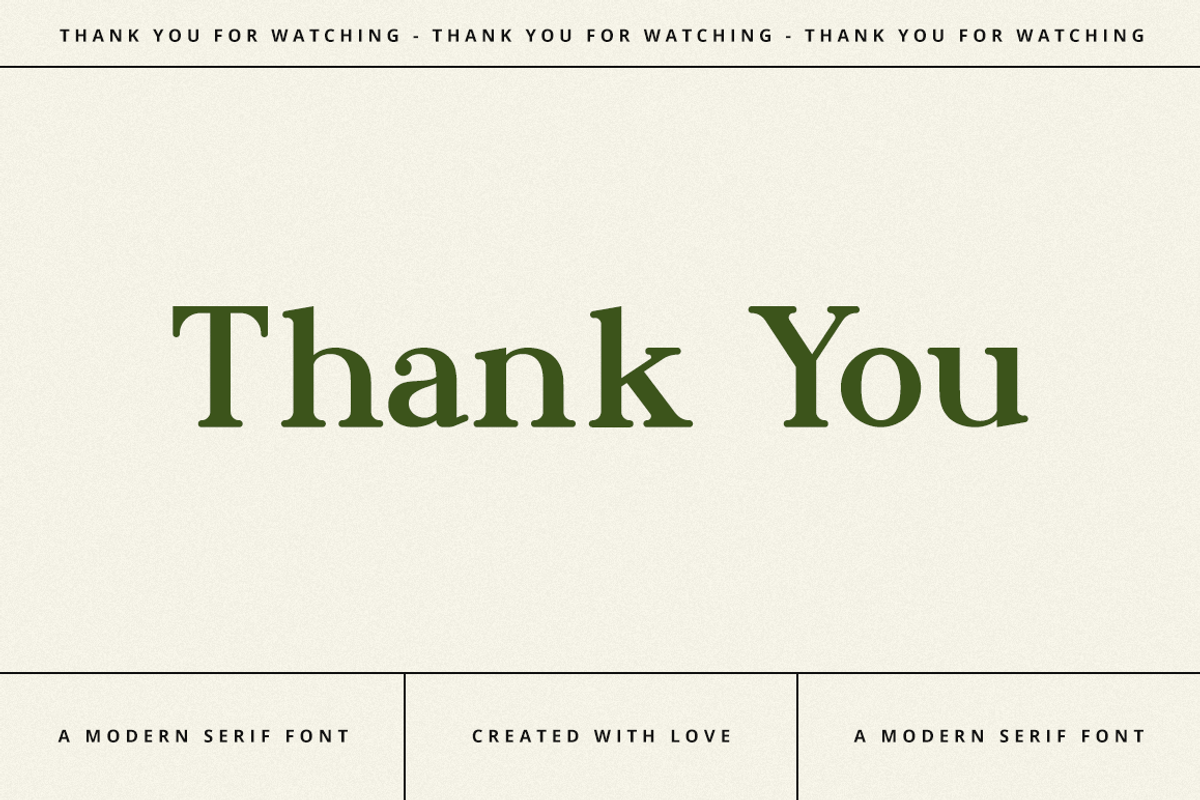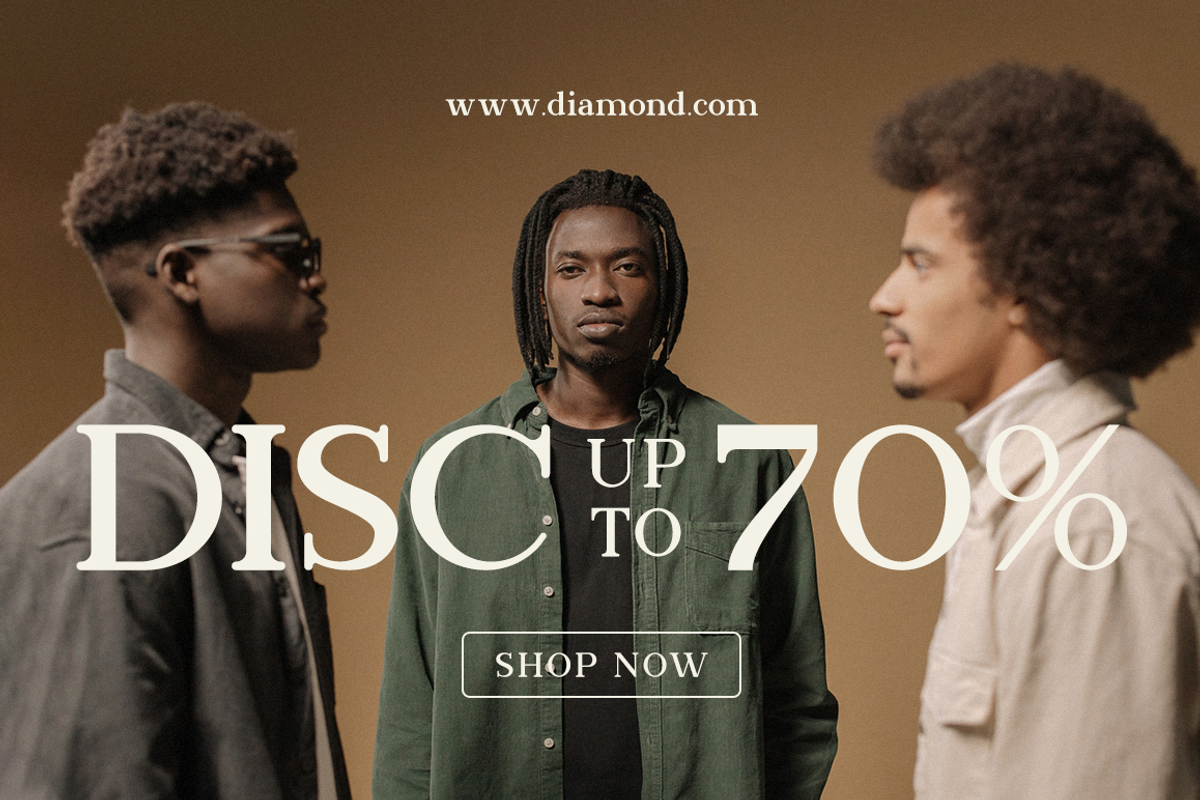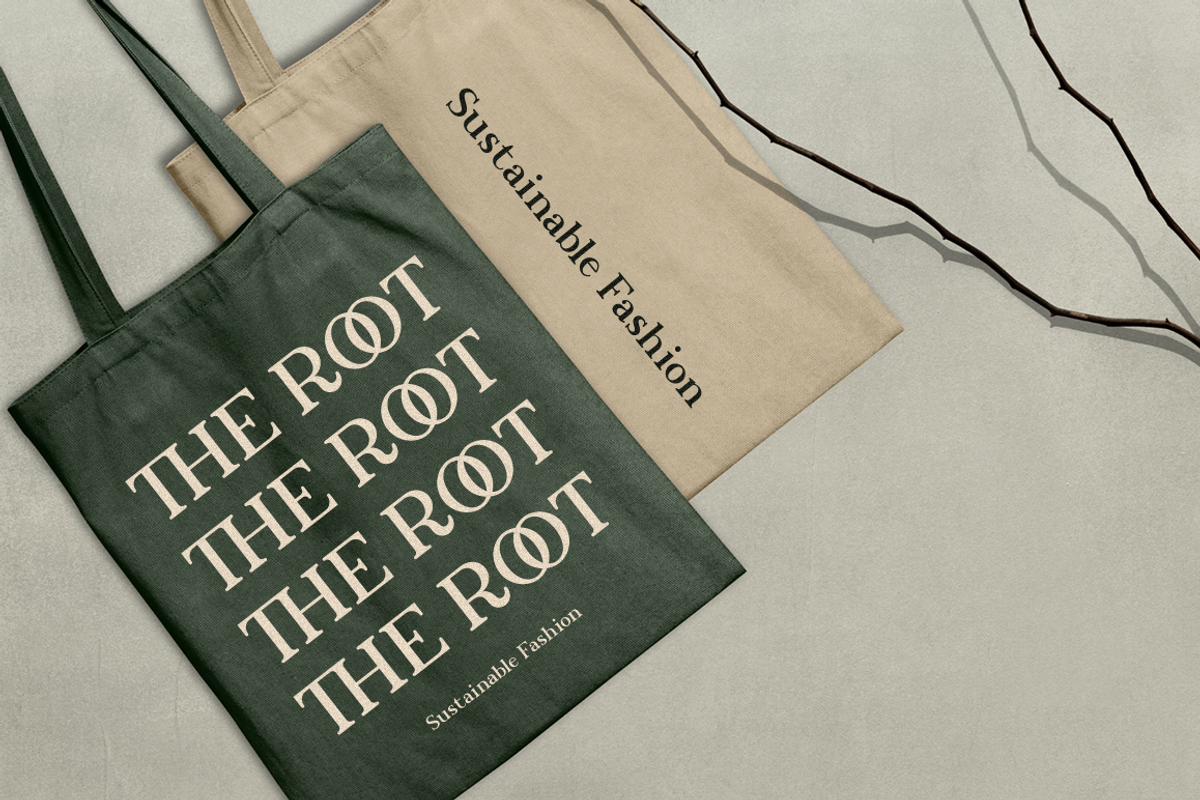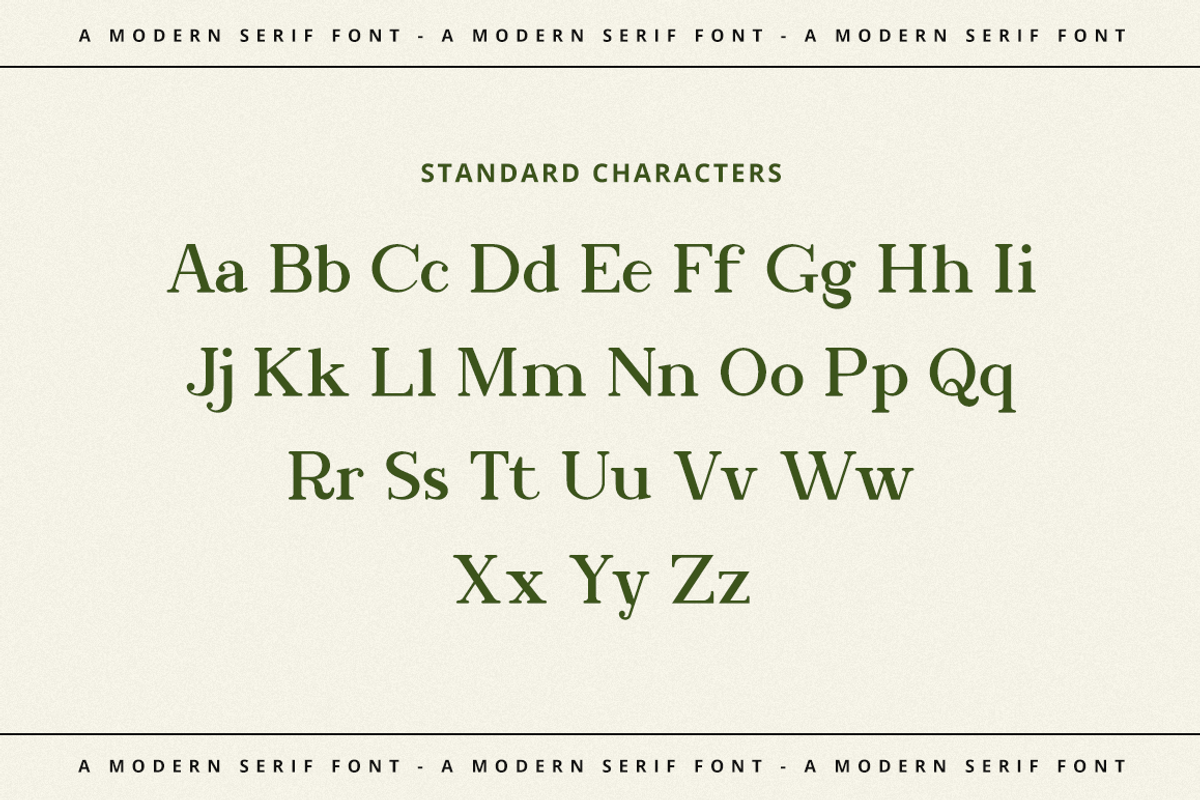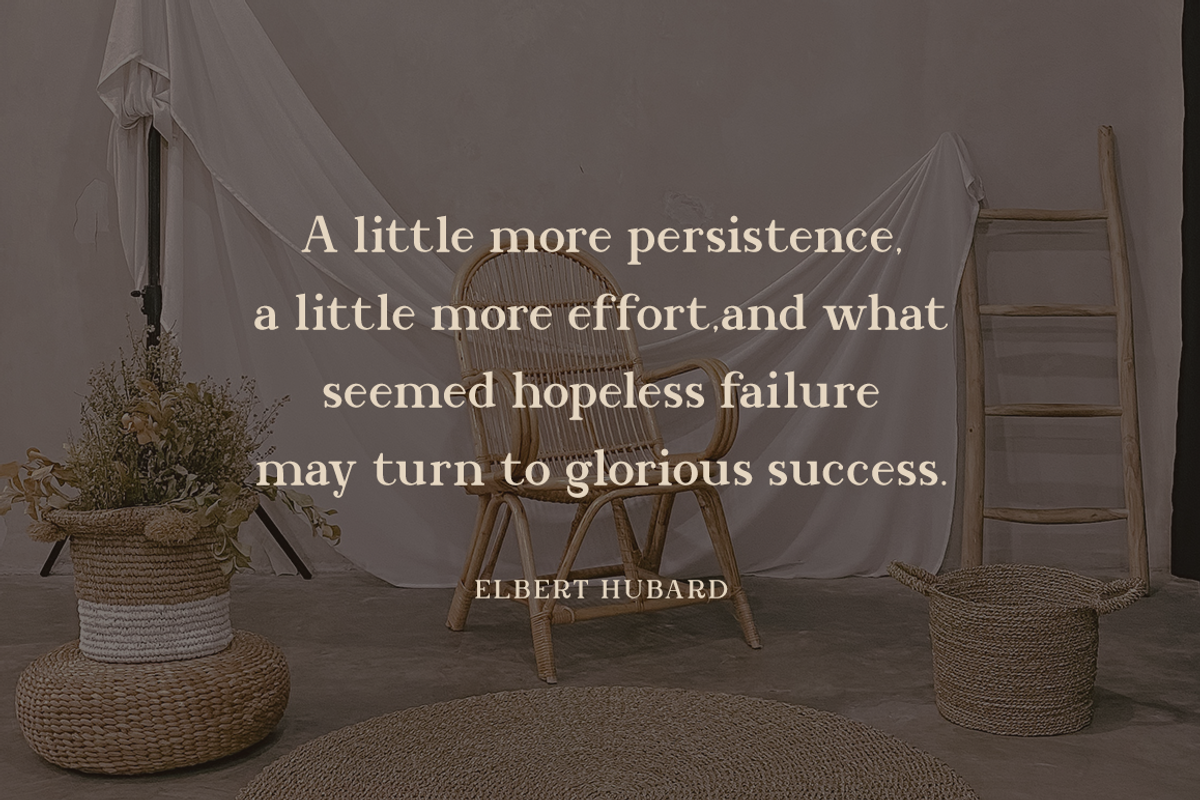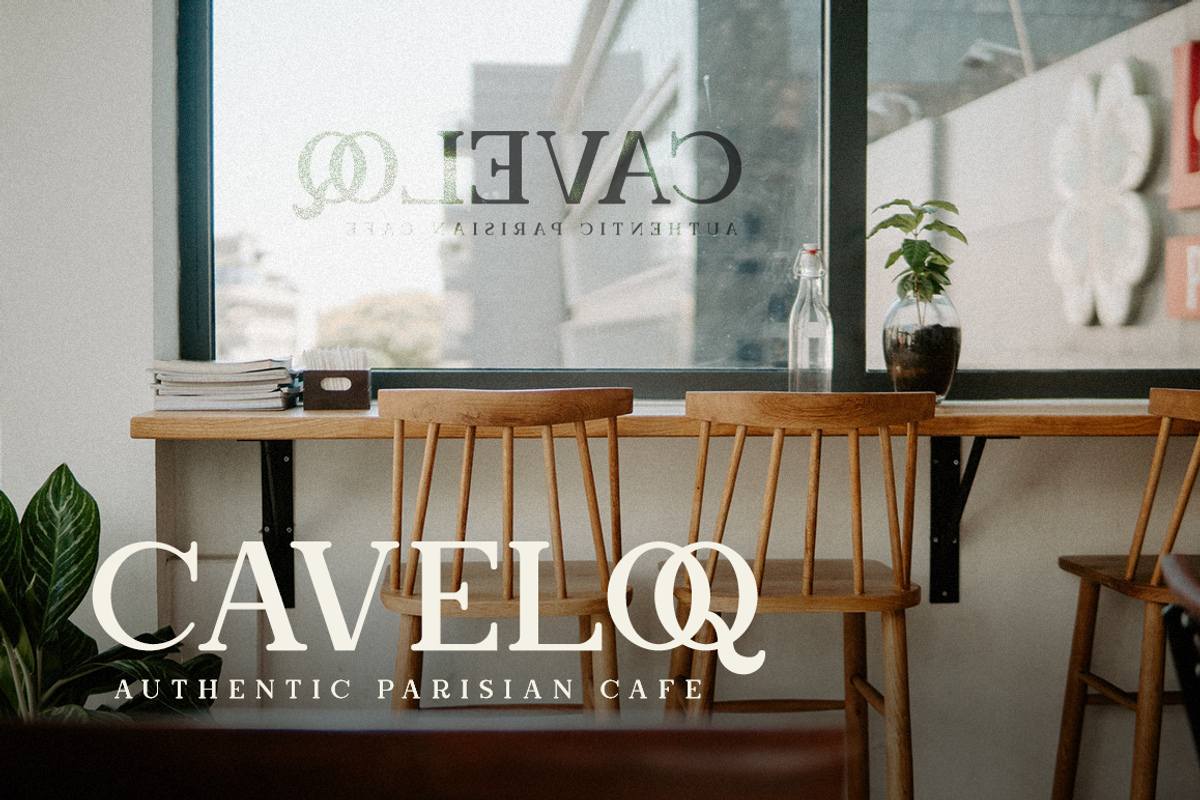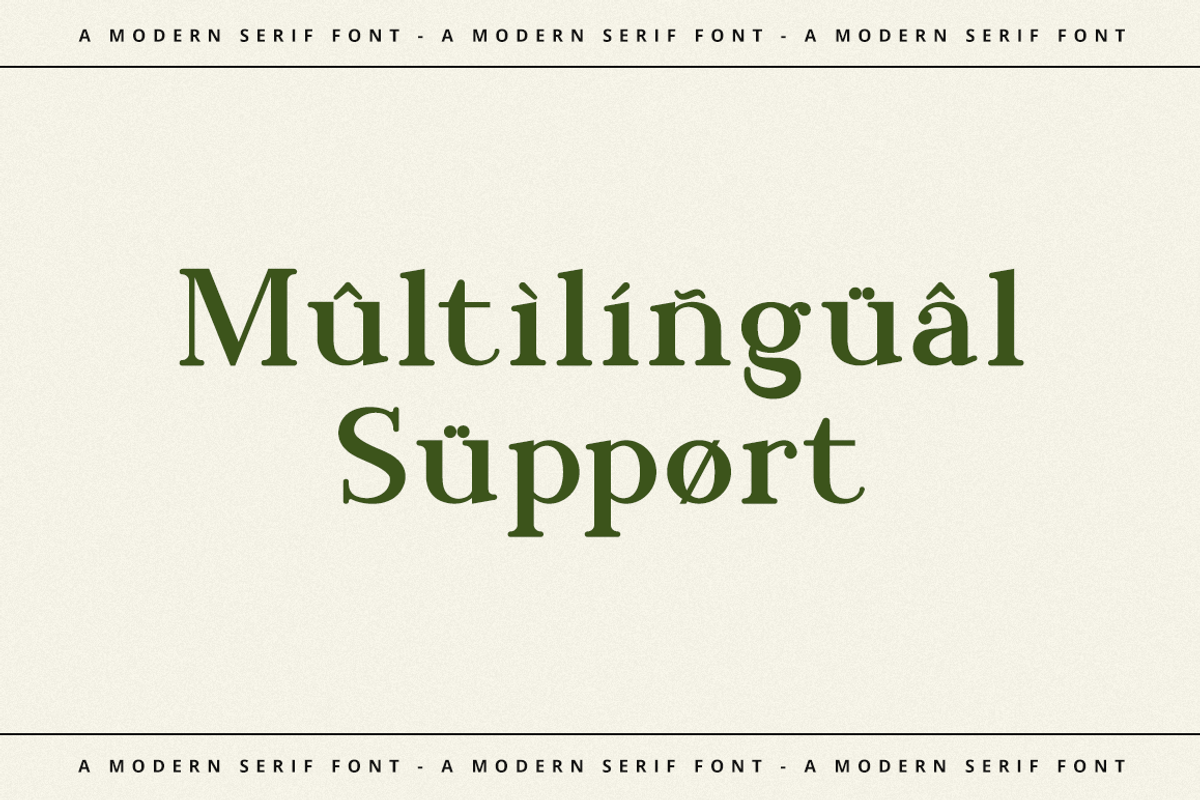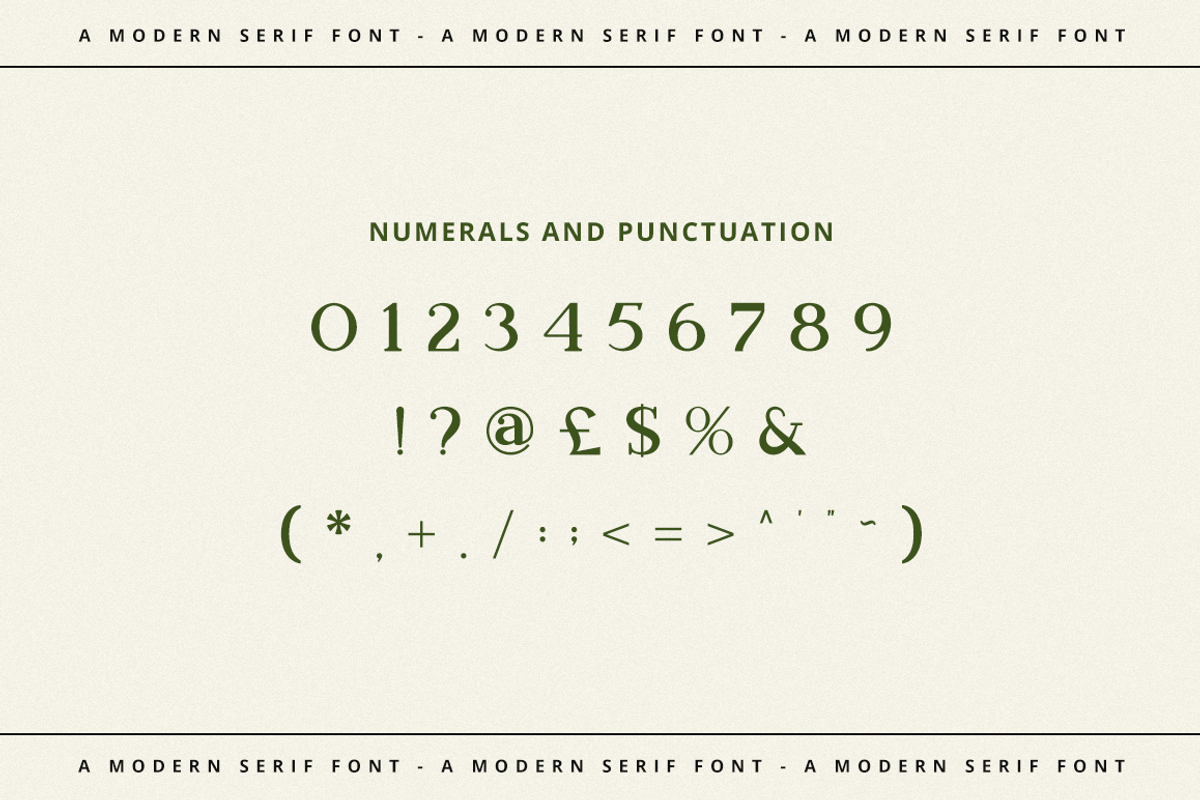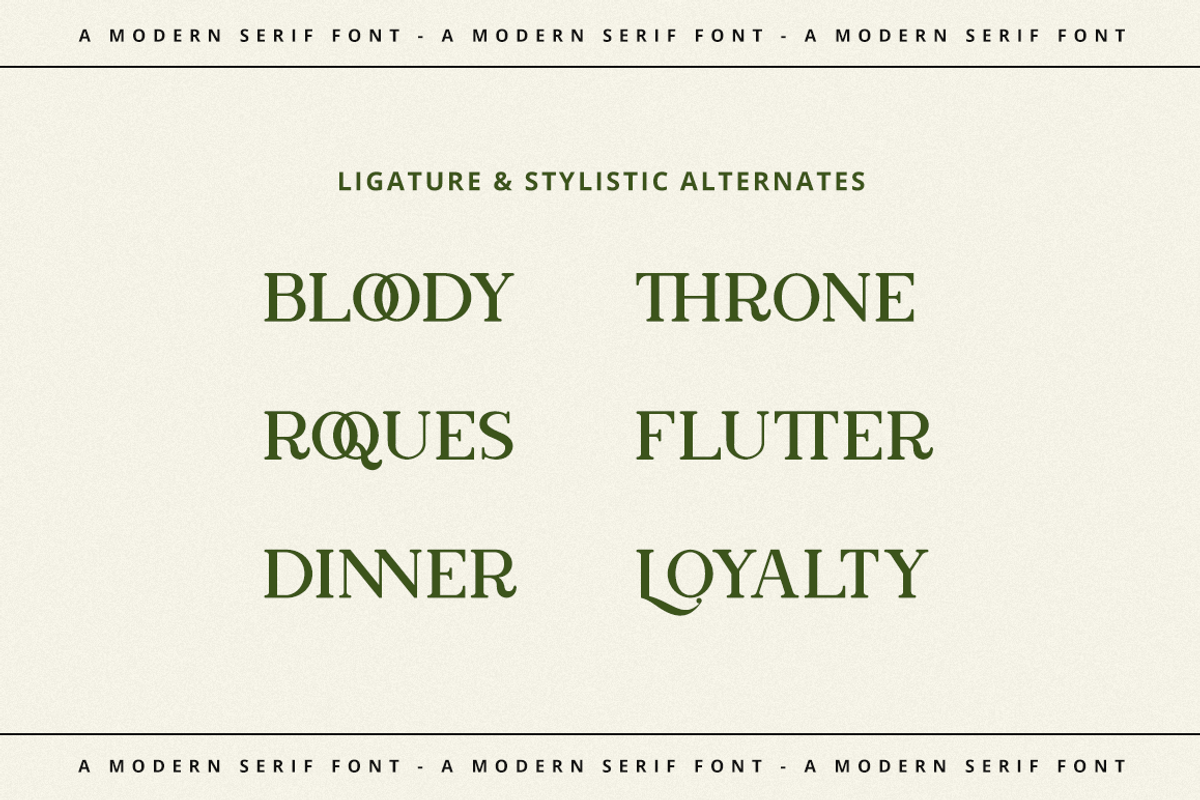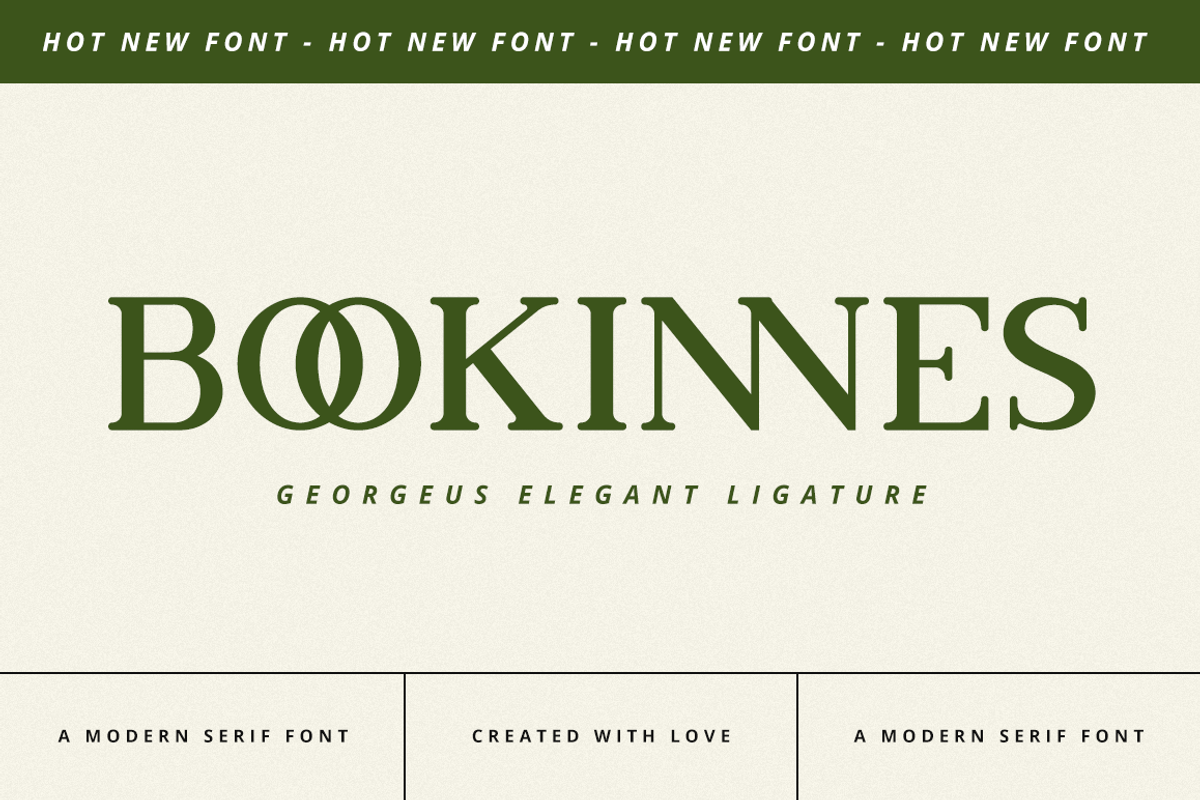
Bookinnes - Business Font
Bookinnes is a distinct, elegant, and authentic serif font. Masterfully designed to become a true favorite, this font has the potential to bring each of your creative ideas to the highest level!